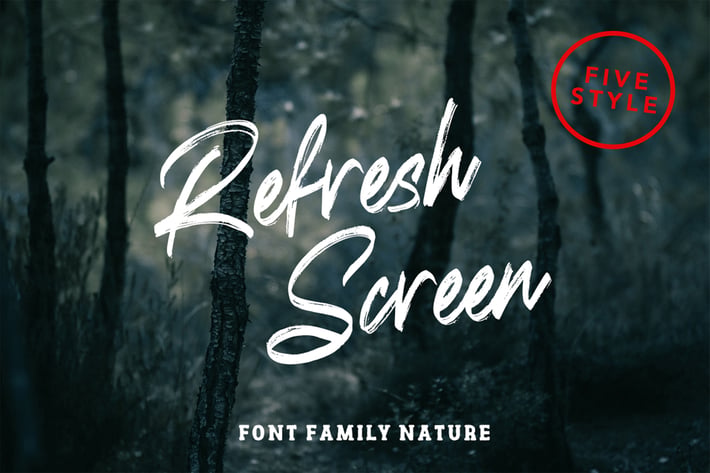
Refresh Screen Nature Family Font
Refresh Screen a hand Brush font that pairs well with it's condensed classy pairing. This 5 style font. Give your new brand, wedding invite, quote, etc a fresh hand painted look with realistic texture. The Refresh Screen was created to give a natural yet stylistic look to your next project! Paring the 5 typefaces together works great for wedding invites or fashion branding.